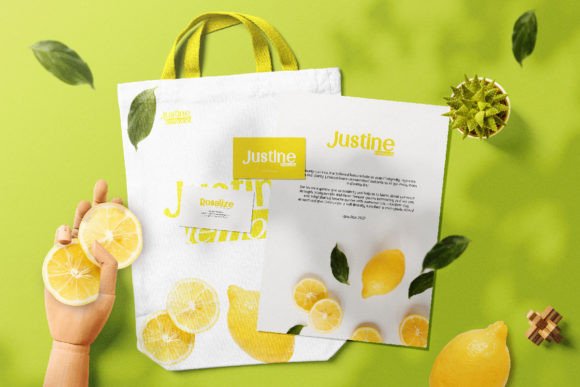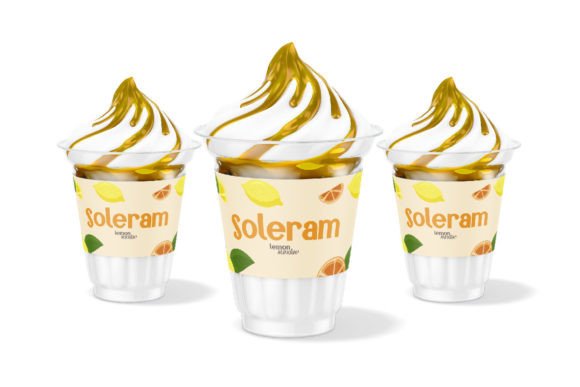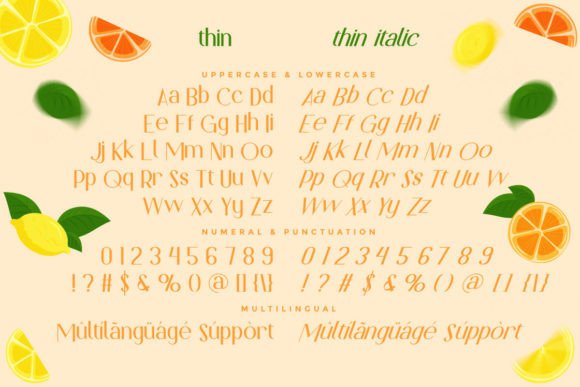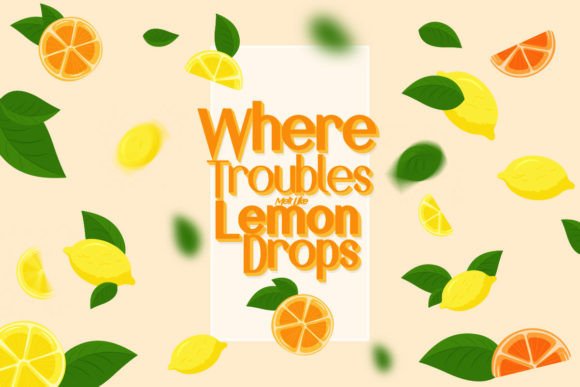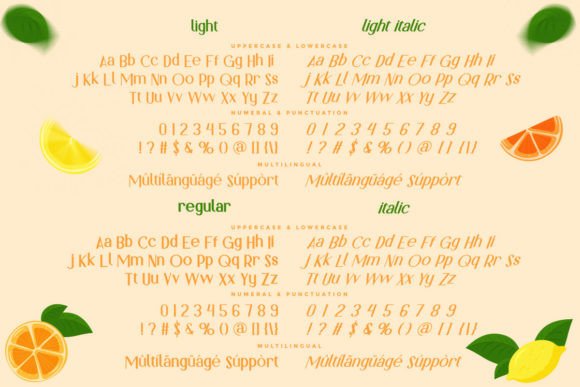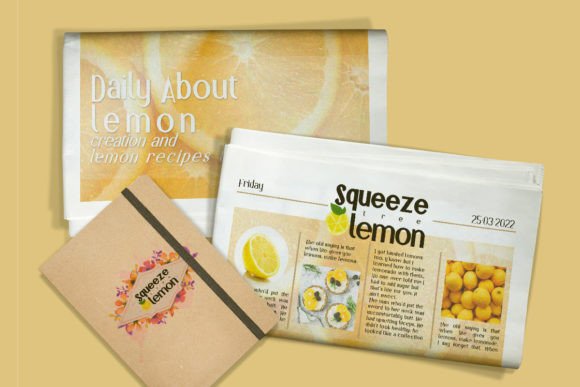
Introduction to Lemon Sundae Font
Lemon Sundae Font is a fresh modern serif font with ten weight/styles.
This font has ten styles that you can use on many occasions, namely regular, italic, thin, thin italic, light, light italic, medium, medium italic, bold, and bold italic It will be the best choice for event organizer, publishing, printing, food and beverage, interior design, furniture, etc.
Key Features of Lemon Sundae Font